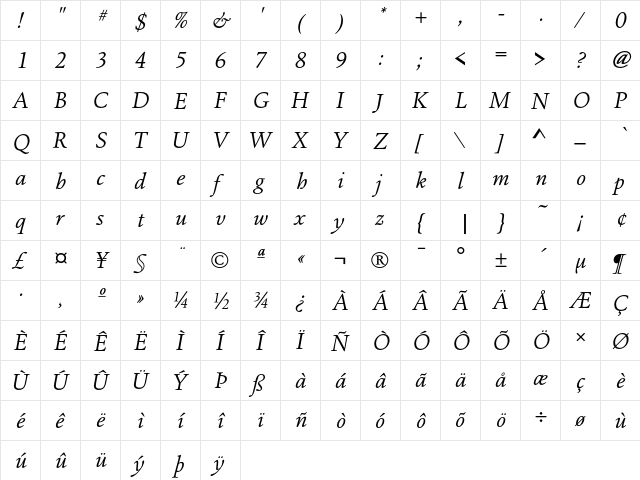
FoundryOldStyle Italic
Design Context for FoundryOldStyle Typeface
FoundryOldStyle brings classic typographic sensibility to the table — its serifs and measured letterforms reflect centuries of print heritage. The dynamic lean of this cut emphasises speed and emphasis in any layout.
Pro Tip: Use FoundryOldStyle for editorial body copy and considered headline work. Pair with a neutral sans for UI elements or captions to create a classic hierarchy.